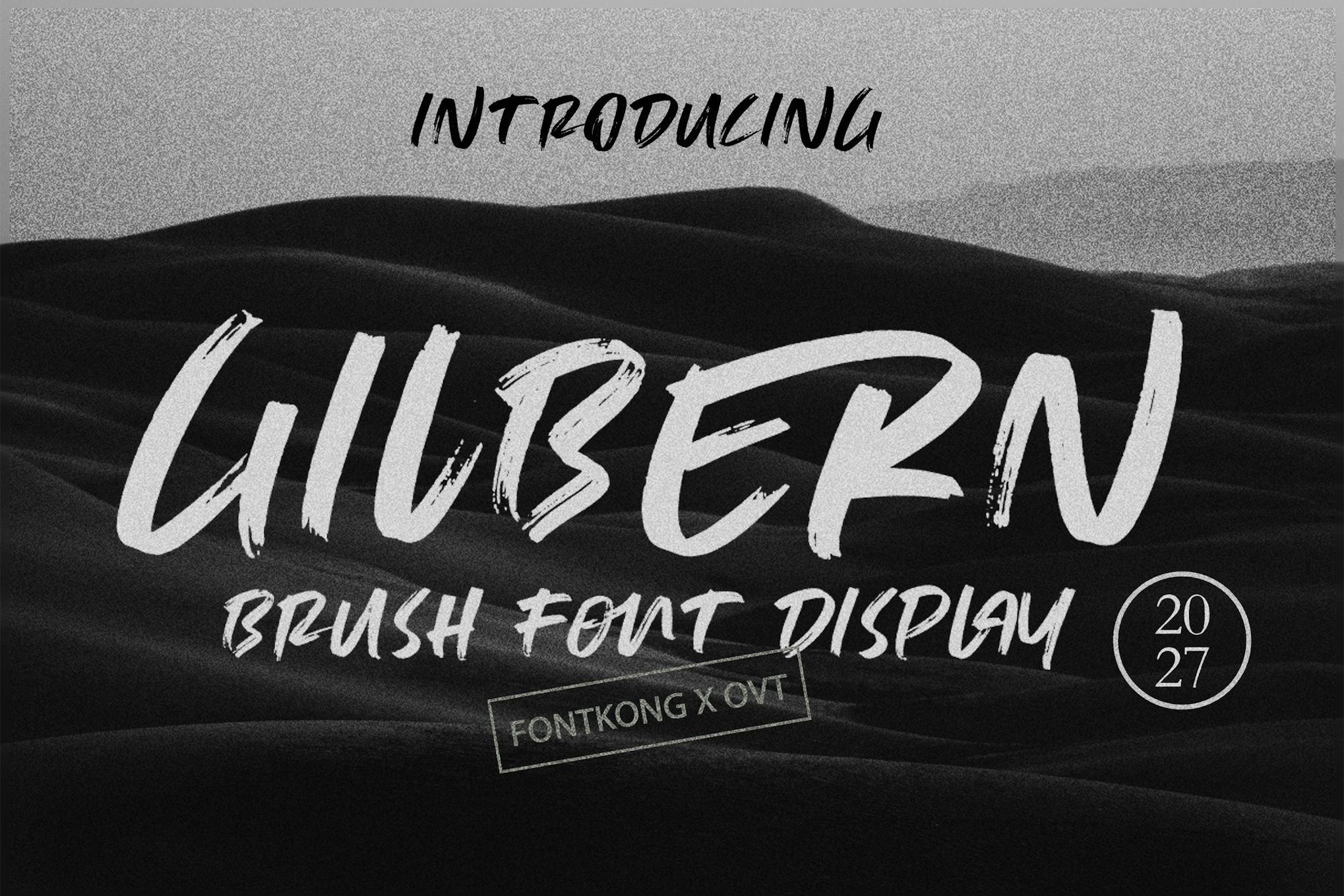
Gilbern - Brush Font Display is perfect for bold headline design, impactful poster typography, creative logo projects, artistic social media graphics, handcrafted packaging design, expressive advertising campaigns, dynamic book covers, craft brand identity, and striking display applications.
What makes Gilbern - Brush Font Display exciting is its commanding presence that combines the raw energy of brush lettering with optimized display performance for maximum visual impact. This powerful typeface features bold brush strokes, dramatic character variations, and expressive letterforms that demand attention and create instant emotional connection. The font's confident attitude and artistic authenticity make it ideal for brands that need to stand out in crowded visual environments while communicating creativity, passion, and handcrafted quality.
Gilbern - Brush Font Display family includes comprehensive display variations: Regular, Bold, Light, Condensed, Extended, and Textured versions. Each style maintains the distinctive brush display aesthetic while offering different visual weights and texture intensities, providing designers with powerful tools for creating dynamic typographic hierarchies and attention-grabbing display systems.
The Gilbern - Brush Font Display Free Download provides access to professional display typography that transforms ordinary headlines into compelling visual statements. This font excels in creative agencies, lifestyle brands, entertainment companies, and artistic ventures where bold visual communication drives engagement and brand recognition. The optimized brush strokes ensure excellent performance at large display sizes.
Design professionals value Gilbern - Brush Font Display for its versatility and commanding visual presence. The font's expressive character and bold construction work beautifully in both digital displays and large-format print applications. Its artistic authenticity appeals to audiences seeking genuine creative expression and memorable brand experiences.
Whether used for festival branding or product launch campaigns, Gilbern - Brush Font Display consistently delivers powerful typography that captures attention, communicates energy, and creates lasting visual impact that resonates with audiences seeking bold artistic expression.